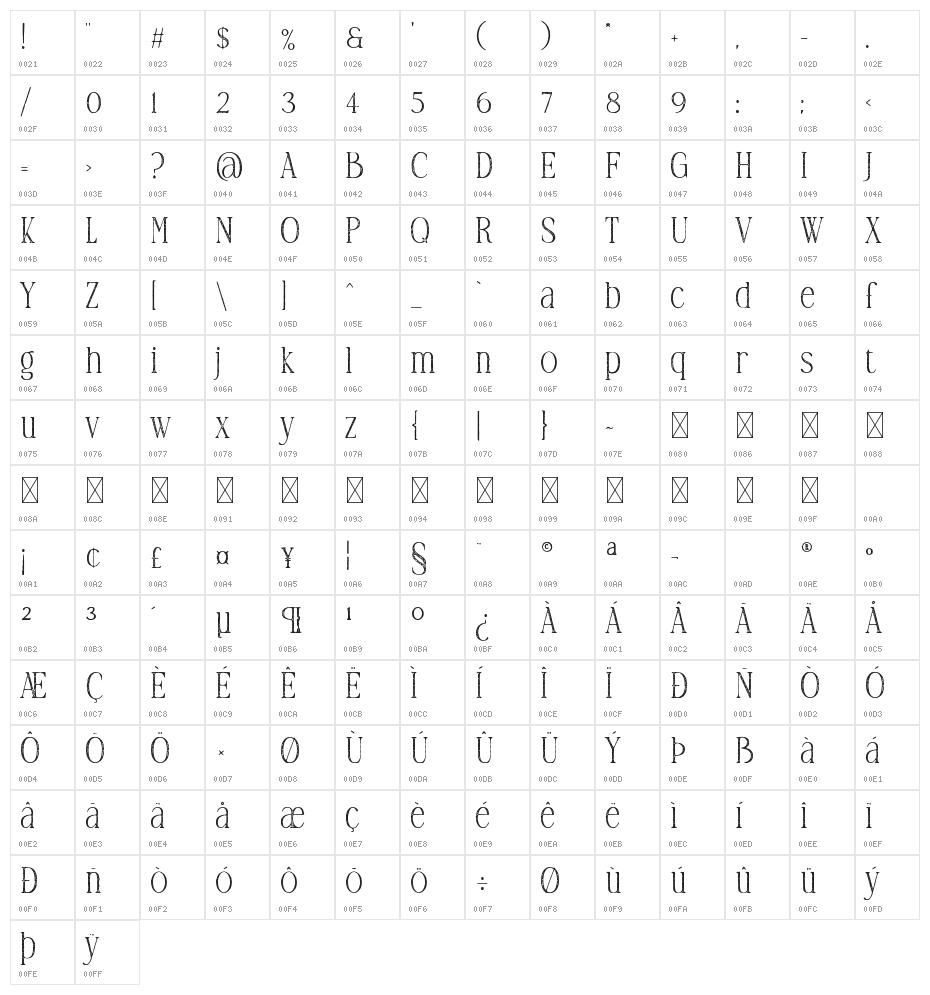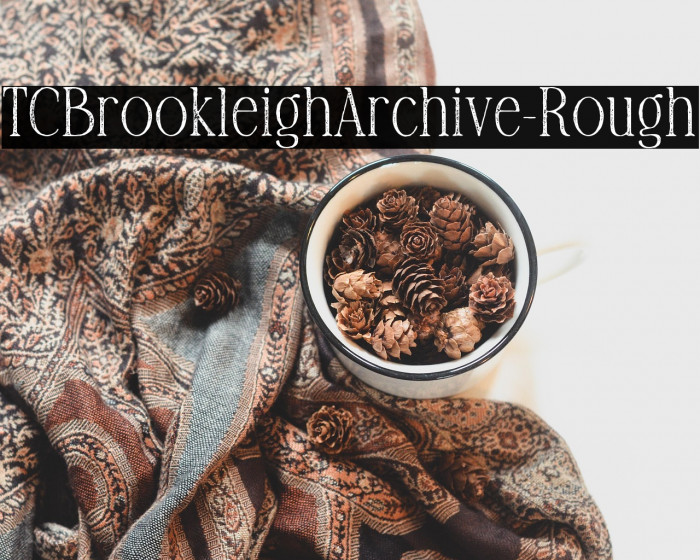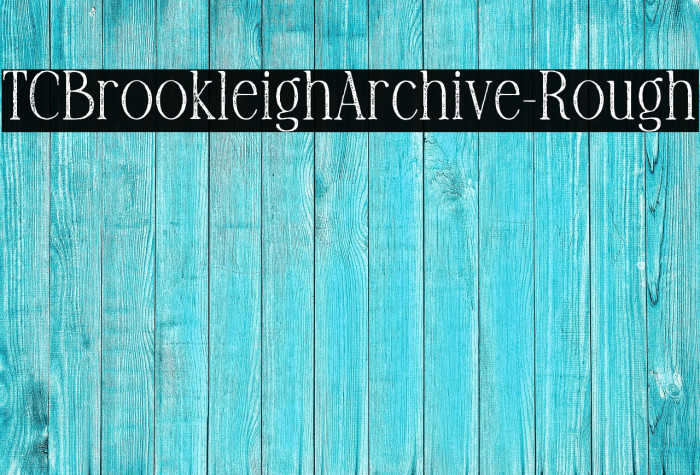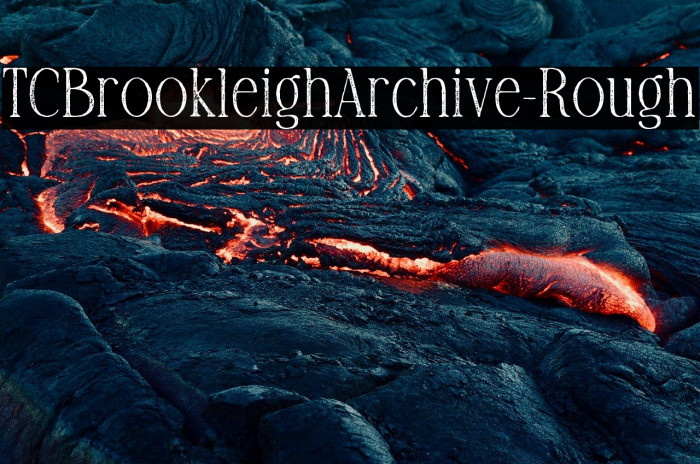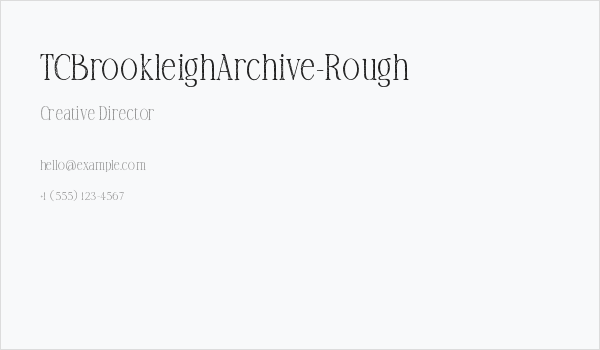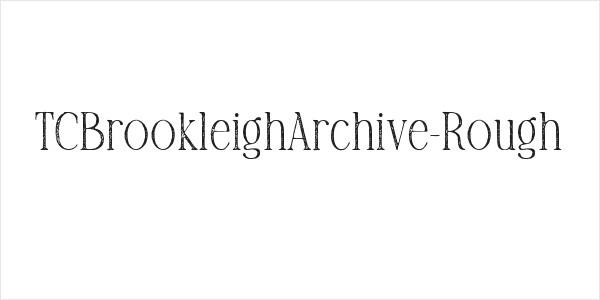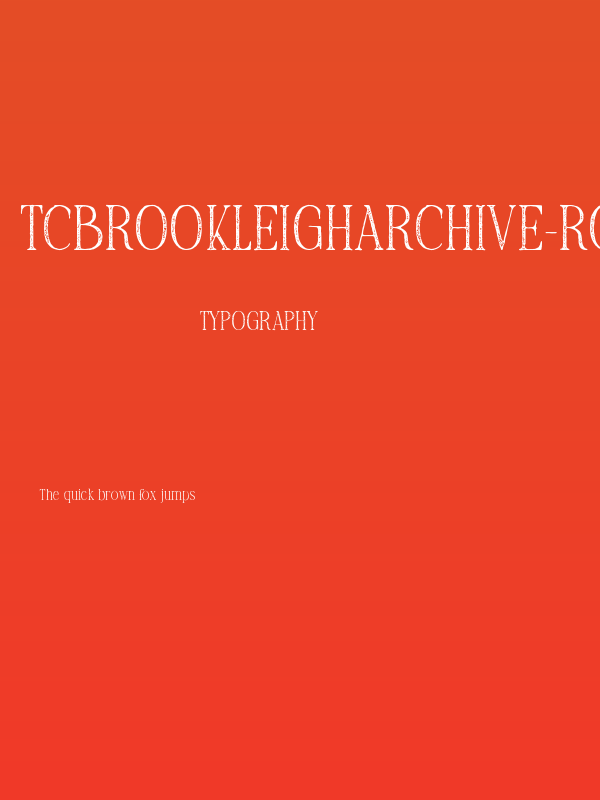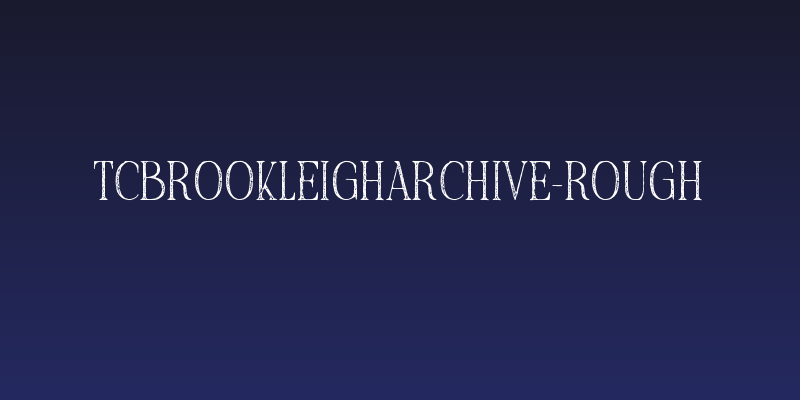
TCBrookleighArchive-Rough Font
TCBrookleighArchive-Rough Description
This font features a distressed, textured appearance that gives it a vintage and rustic feel. The characters are serifed, with each letter displaying a unique, weathered look that suggests age and history. The uppercase and lowercase letters maintain a consistent style, with slightly irregular edges that add to the handcrafted aesthetic. The numerals and special characters follow the same design principles, ensuring a cohesive look across all text elements. This font's distinctive style makes it ideal for projects that require a touch of nostalgia or a handcrafted vibe.
| Overall Style | Vintage |
| Use Case | Headlines, Logos, Decorative text |
| Proposed Projects | Ideal for vintage-themed designs, posters, branding for artisanal products, and any project seeking a rustic, handcrafted look. |